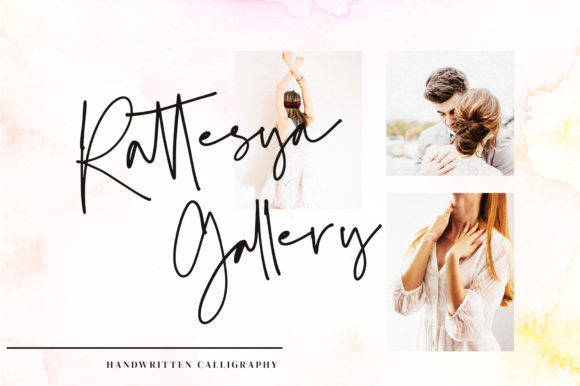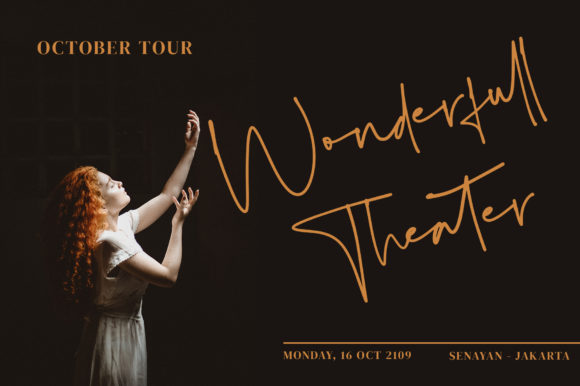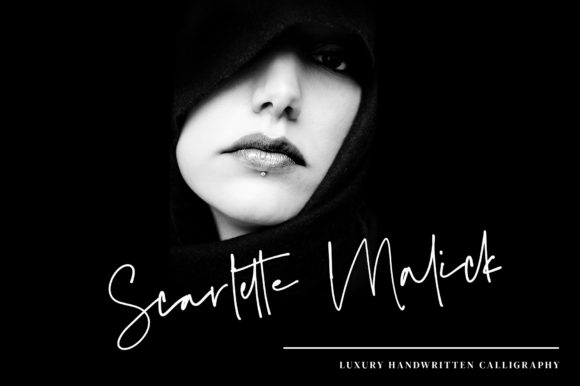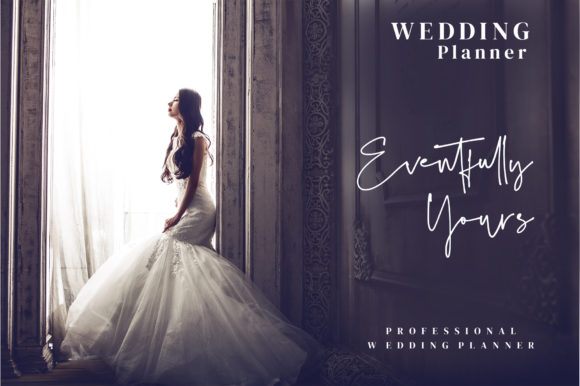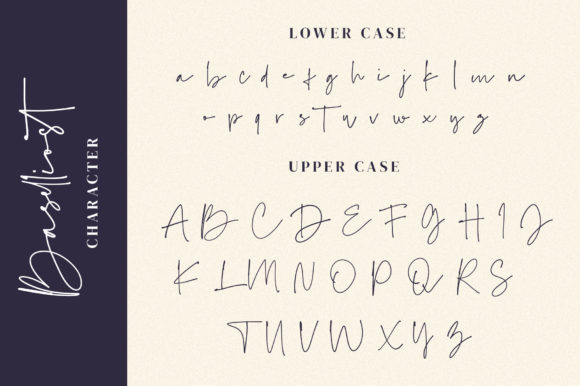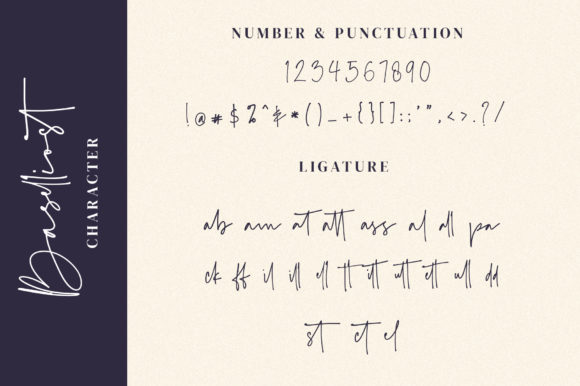
HomeScript FontsBaselliost Font Script Fonts Baselliost Font FacebookXPinterestWhatsApp Baselliost Font Poster 2 Baselliost Font Poster 3 Baselliost Font Poster 4 Baselliost Font Poster 5 Baselliost Font Poster 6 Baselliost Font Poster 7 Baselliost Font Poster 8 About Baselliost Font Baselliost features stunning curves and rich swashes. Fall in love with its bold charm! DOWNLOAD ON CREATIVE FABRICAThis font is sold and delivered by Creative Fabrica. Font Canyon may earn a commission if you buy through this link. People also explored Fresh Watermelon Font Almond Signature Font Cogan Rounded Font The Singet Font Milyah Font New Molly Font Pink Script Font Molaka Font Sunshine Tropical Font 303 0 TagsBaselliost Font Previous articleBelligro FontNext articleBine Font LEAVE A REPLY Cancel reply Comment: Please enter your comment! Name:* Please enter your name here Email:* You have entered an incorrect email address! Please enter your email address here Website: Save my name, email, and website in this browser for the next time I comment. Personal Use Free Doodle Font Personal Use Free Read more about this font Brittish State Personal Use Free Read more about this font Castina Personal Use Free Read more about this font Persephone Free Personal Use Free Read more about this font BLOG Using Fonts in Digital Marketing: Tips to Strengthen Your Brand Identity In the realm of digital marketing, every visual element plays a crucial role in shaping a brand's identity, and fonts are no exception. The... Fonts That Capture the Spirit of New York City Best Fonts for T-Shirt Design – Top 2025 Picks Transform Your Website: Elevate Your Typography with 7 Best Web Font Generators